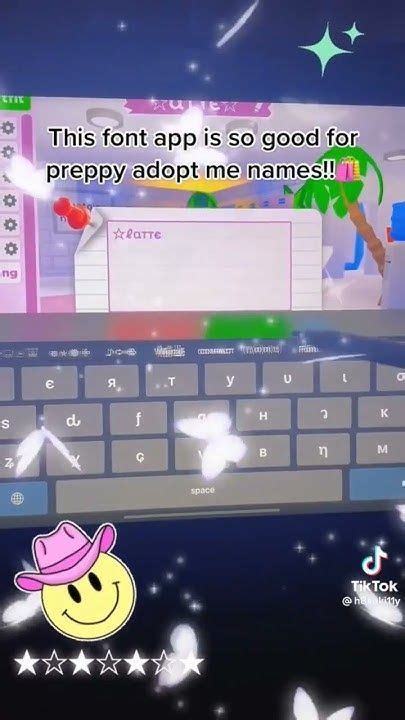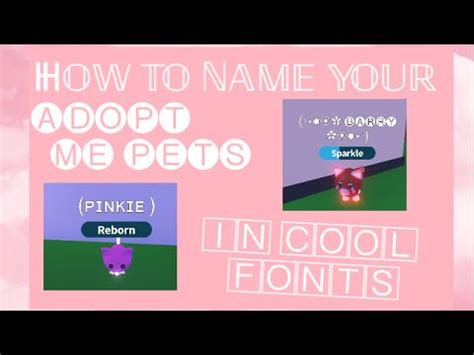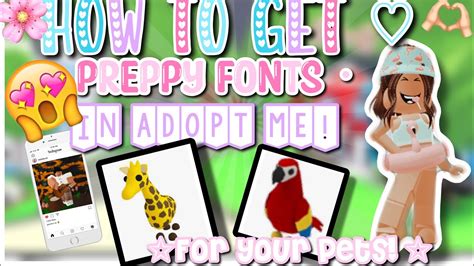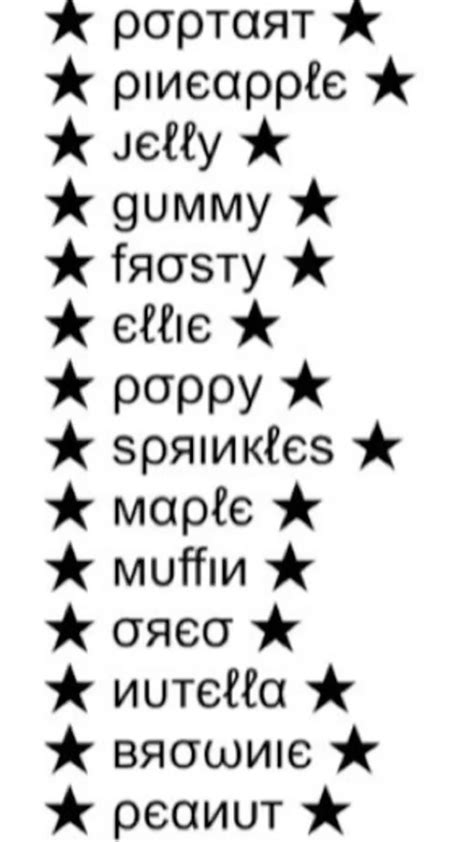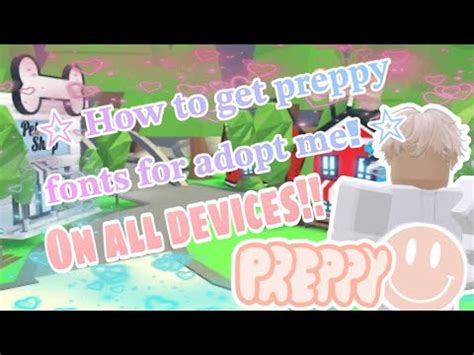
ADOPT ME FONTS
Welcome to the world of adopt me fonts, a unique and creative approach to typography that has gained popularity among designers and enthusiasts alike. This innovative concept allows individuals to embrace their creativity and personalize their digital content with a touch of individuality. In this introduction, we will explore the concept of adopt me fonts and uncover the benefits they offer to those seeking to enhance their visual communication.
The term adopt me fonts refers to a collection of fonts that are designed to be easily accessible and customizable. These fonts are not just about aesthetics; they empower users to express their unique personalities and ideas. With a simple click, one can transform their text into a visually appealing and distinctive masterpiece.
One of the key advantages of adopt me fonts is the ability to stand out from the crowd. In a world filled with generic fonts, these fonts offer a fresh and modern approach to text styling. Whether it's for a social media post, a blog, or a presentation, these fonts can make your content more engaging and memorable. By adopting these fonts, you can showcase your creativity and leave a lasting impression on your audience.